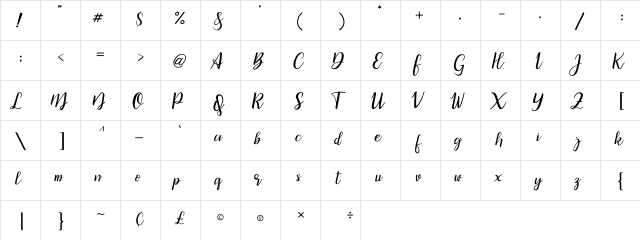
bicillesta Regular Font Preview
bicillesta Regular
Design Context for bicillesta Typeface
bicillesta is a composed and adaptable typeface that performs quietly and consistently across a wide range of design contexts.